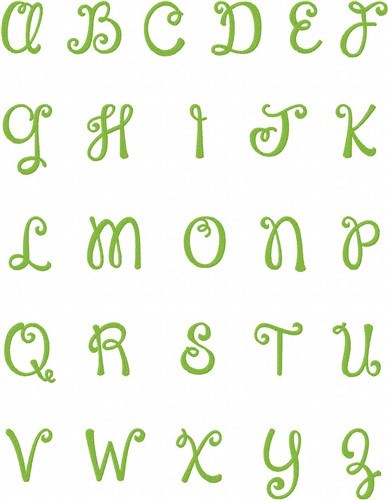
Unicorn Creatives is happy to present Happy Day Embrilliance machine embroidery font which has Playful script machine embroidery font suitable for cheerful accents on pillows or tote bags. Available in BX font and Embrilliance formats, this design features the phrase 'Happy Day' in a vibrant light green fill. included. If you would like to view more embroidery fonts and alphabets please search our embroidery fonts page.